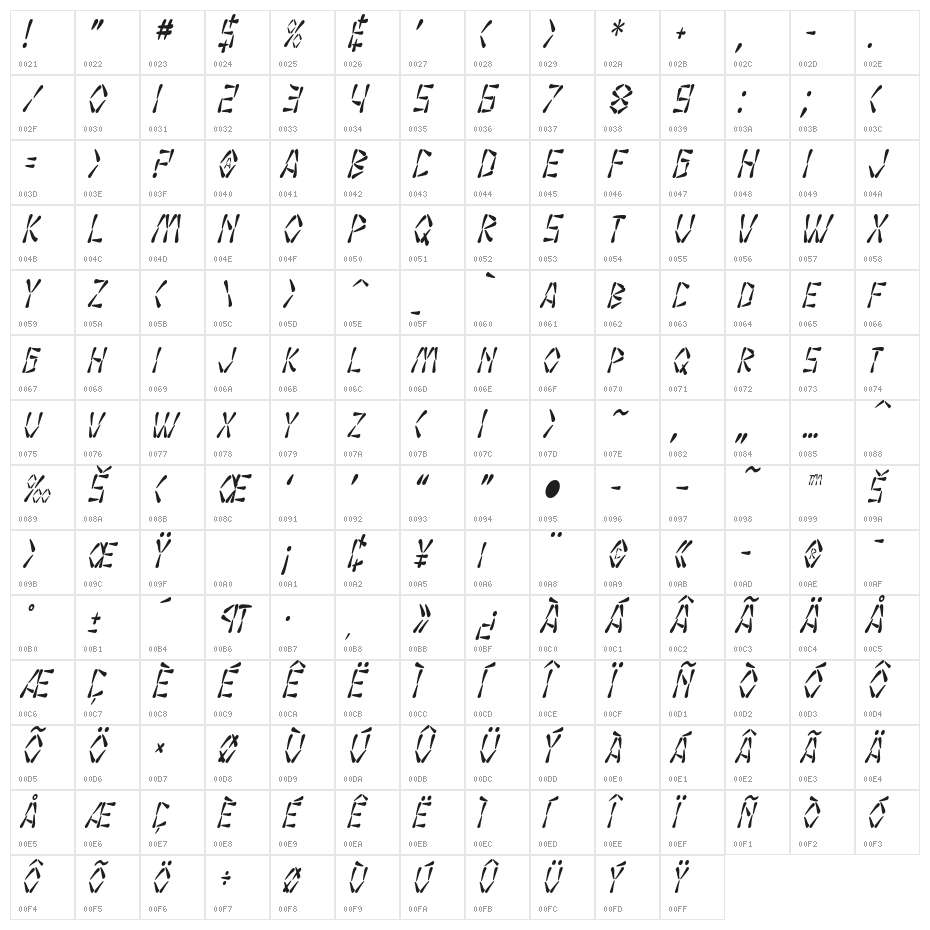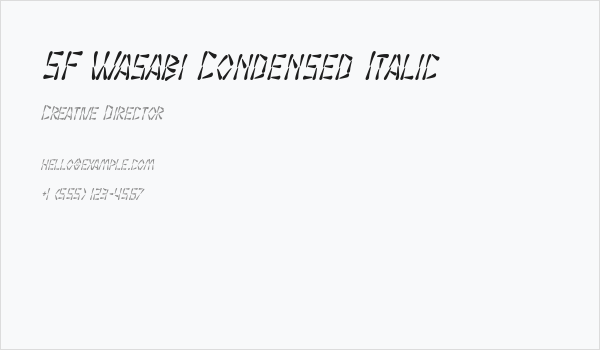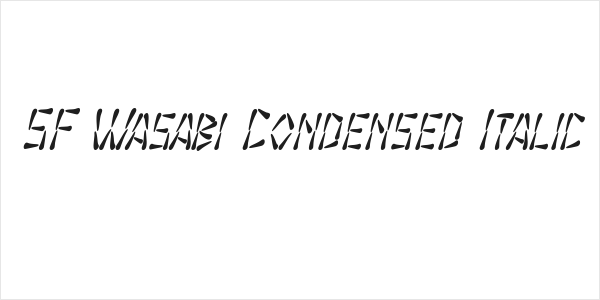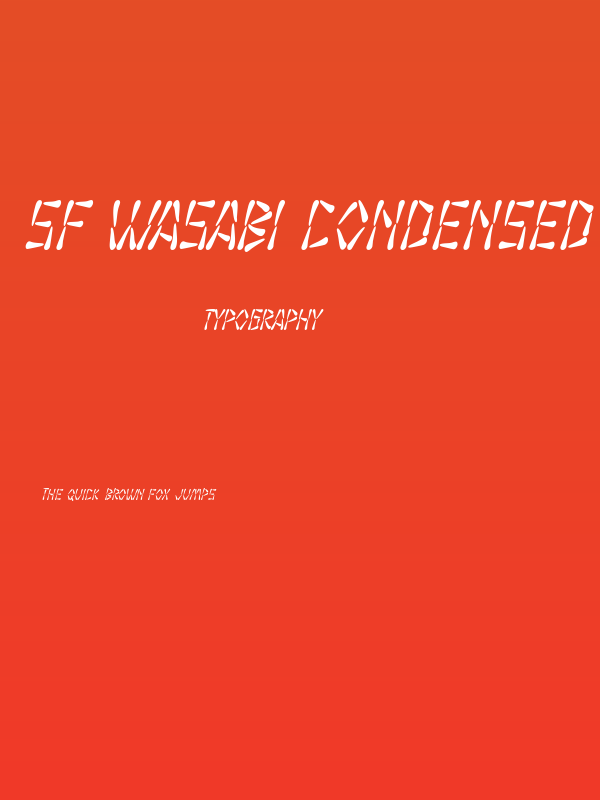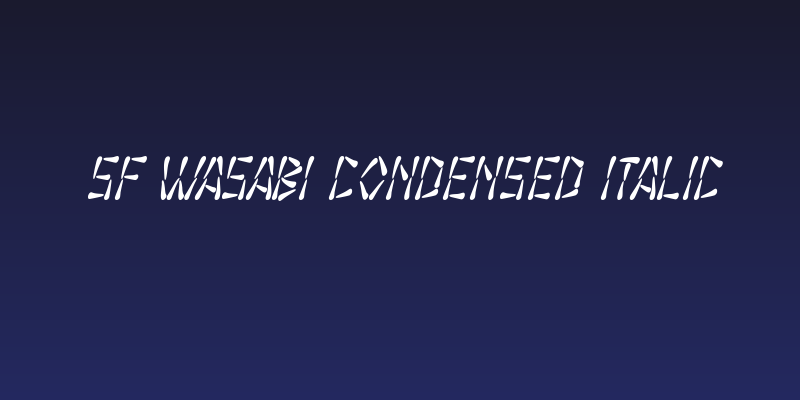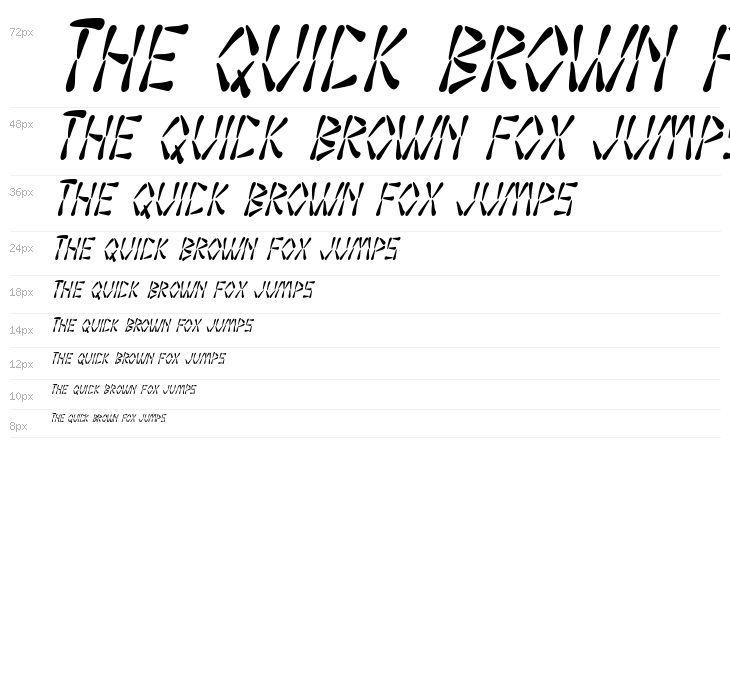
SF Wasabi Condensed Italic Font
SF Wasabi Condensed Italic Description
This font features a unique, angular design with a condensed and italicized style. The characters are formed with bold, slanted strokes that give a sense of movement and dynamism. The uppercase and lowercase letters maintain a consistent slant, creating a cohesive look. Numbers and special characters are designed with the same angular and slanted characteristics, ensuring uniformity across all elements. The font's distinct style makes it stand out, with each character having a sharp, geometric appearance that is both modern and edgy.
| Proposed Projects | Ideal for edgy branding, modern posters, dynamic headlines, and unique logo designs. |